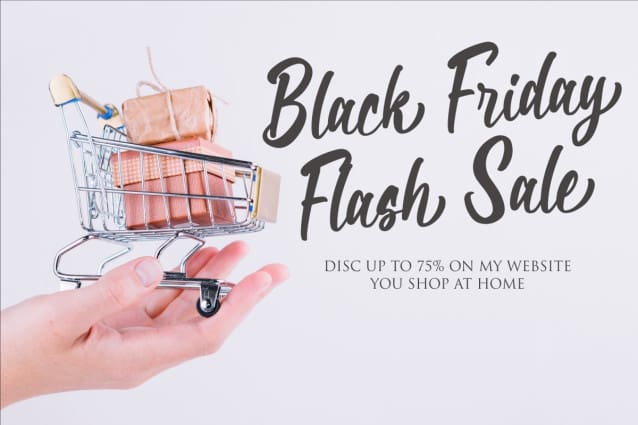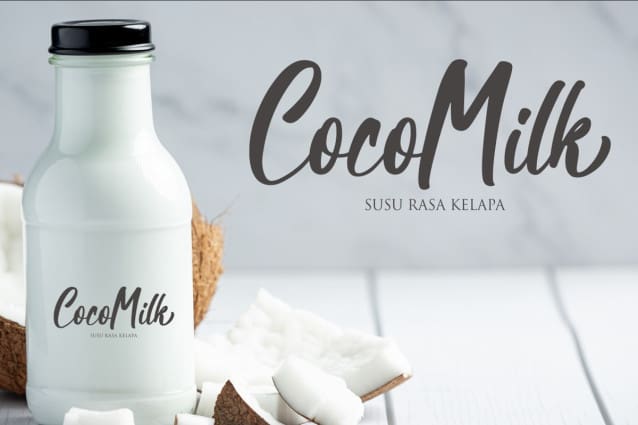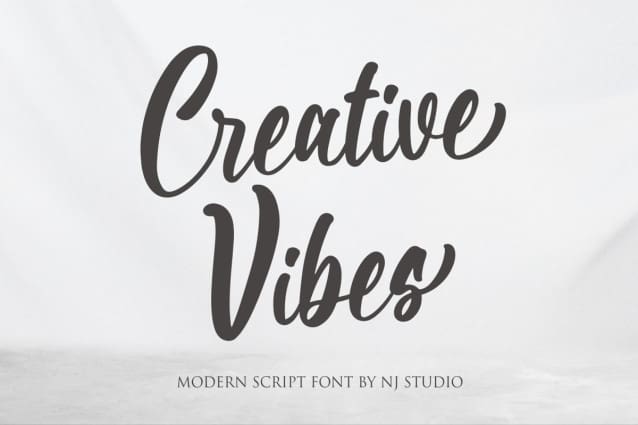
Creative Vibes Font
Creative Vibes Font a modern script font. It features ligatures characters that will take your projects to the next level!
This font is PUA code which means you can easily access all the glyphs that are full of natural! It also features many special features including glyphs. font designs that are made for various vector designs, printing such as digital wedding blogs, online shops, social media, while printing can be used in the field of product clothing, accessories, bags, pins, logos, business cards, watermarks and many others …